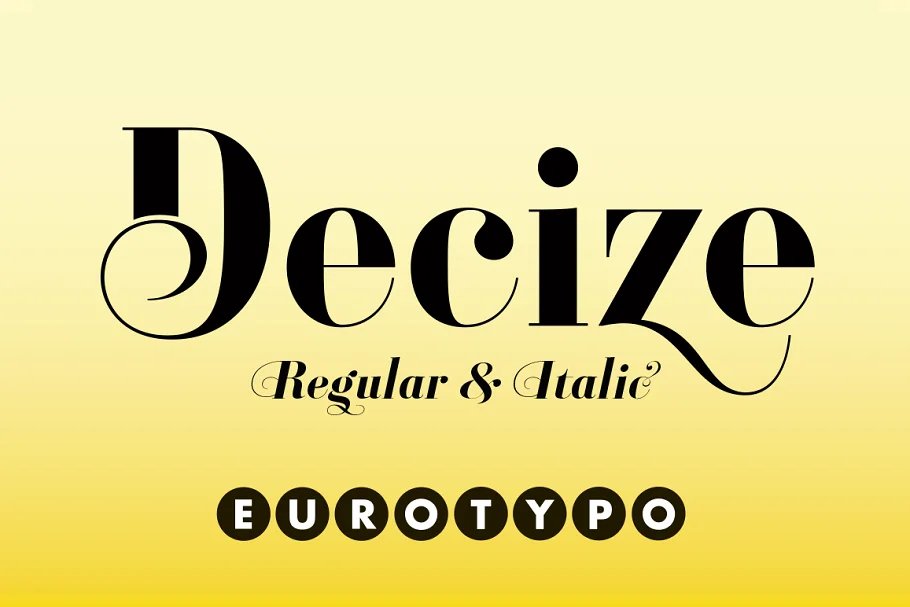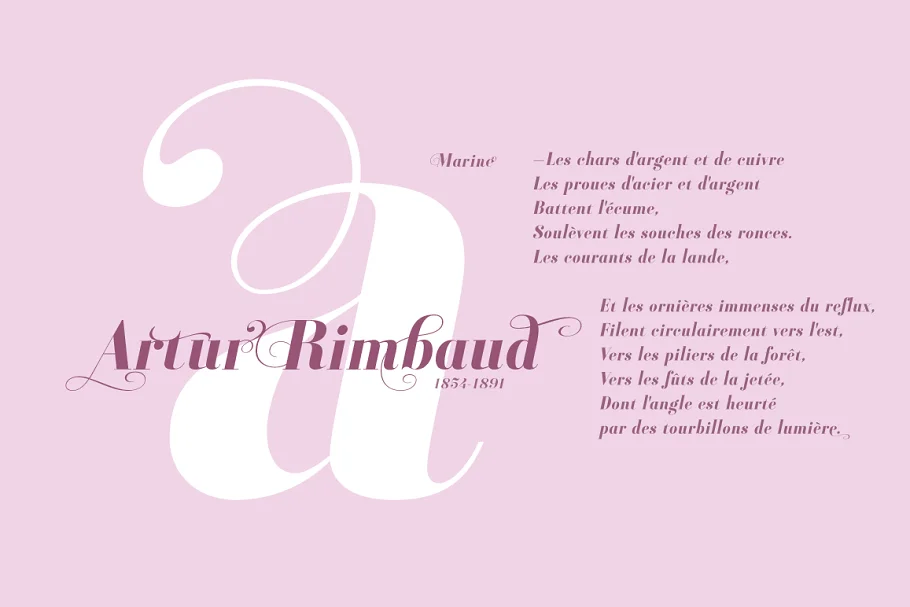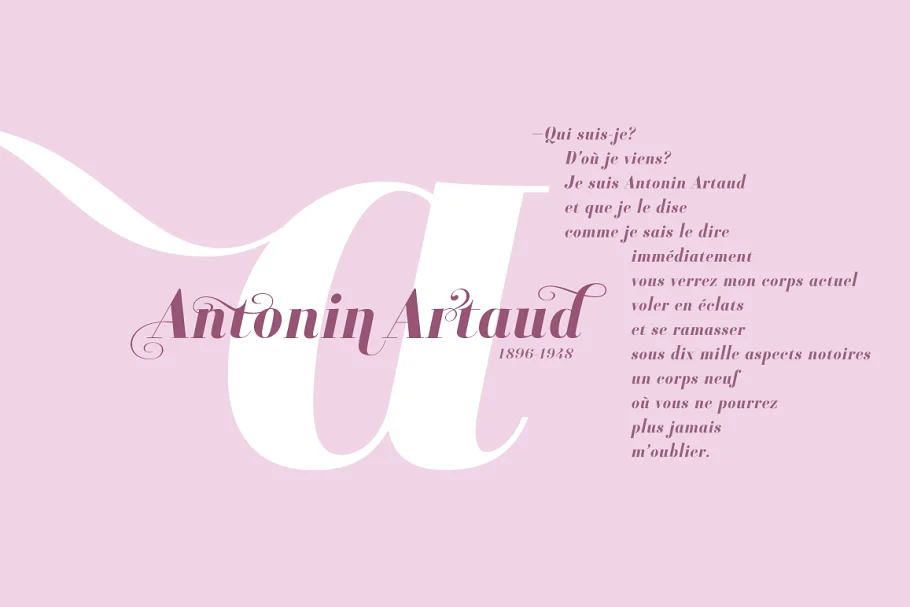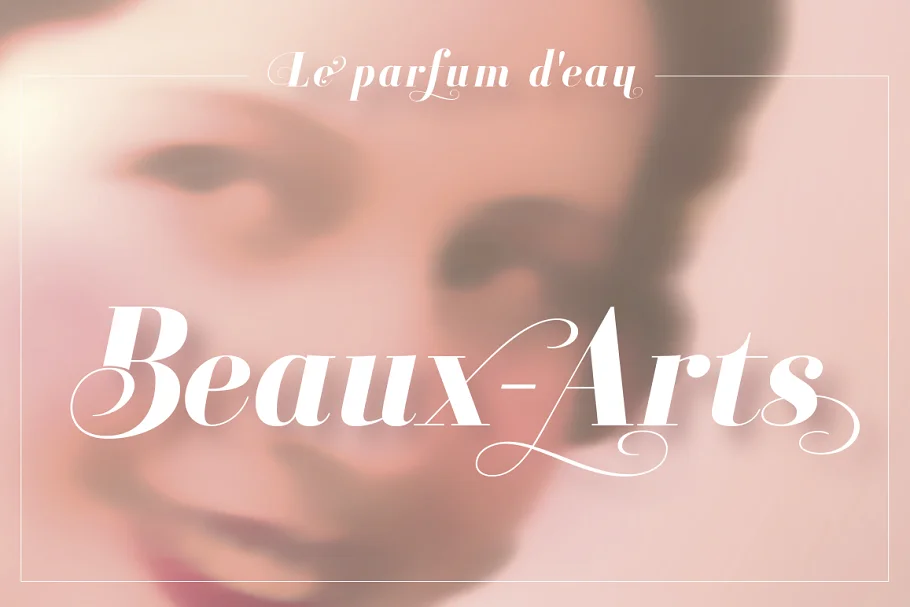
About the Decize Font
Decize font is a classic “Didona” characterized by extreme contrast in thick strokes and thin strokes, by the use of very short serifs, and by the vertical stress of the letters.
This version is a little condensed and enriched by a full set of OpenType features like tails, ligatures, alternates, and swashes.
Decize Italica is a true “italic” This font was designed and carefully drawn t
o combine with Decize Regular, it has 652 glyphs and the same OpenType features as the regular font.